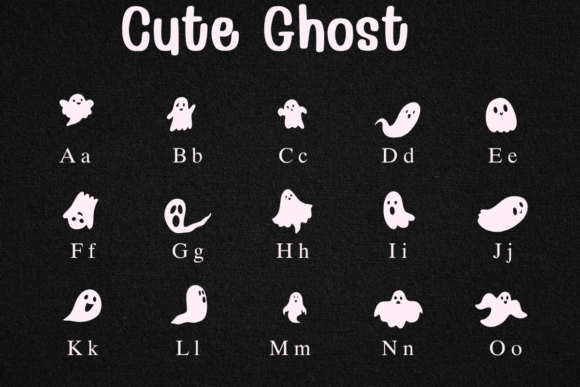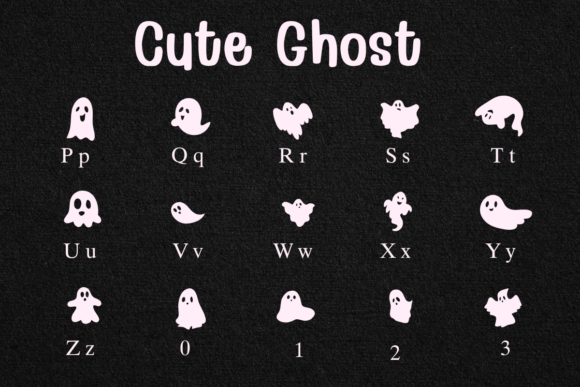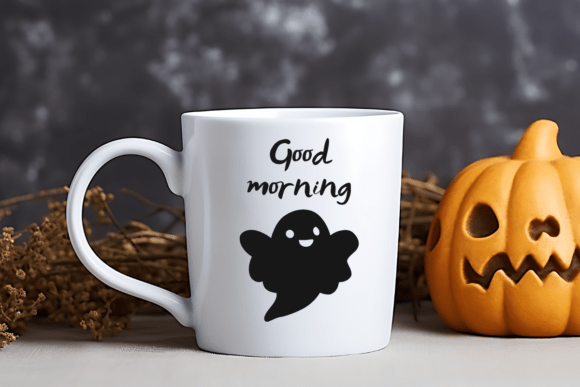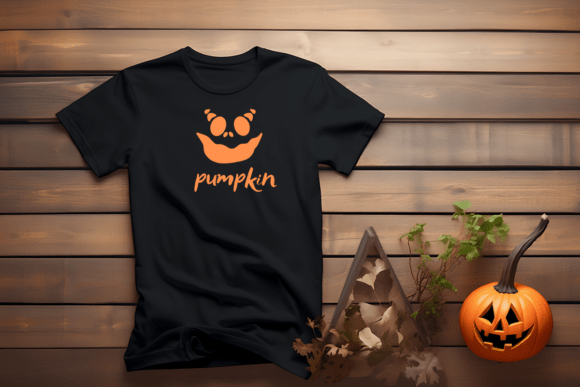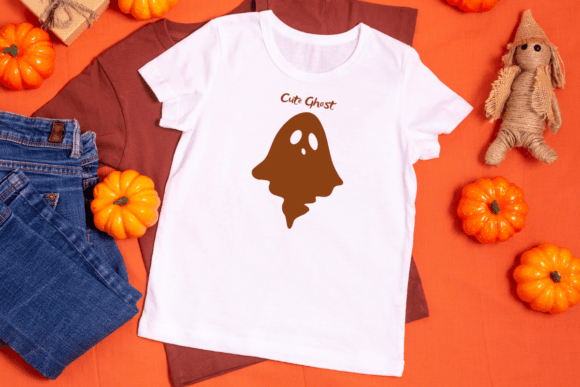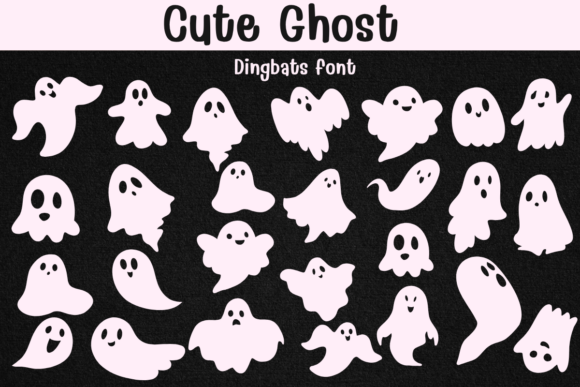
Cute Ghost Font: The Spookiest and Most Adorable Font for Your Halloween Crafts
Are you looking for a font that will add a touch of spooky-cute charm to your Halloween crafts, kid-friendly designs, and digital decorations? Look no further than the Cute Ghost Font! This charming dingbat font is filled with playful, spooky-cute ghost illustrations that are sure to delight both kids and adults alike.
What is Cute Ghost Font?
Cute Ghost Font is a unique and whimsical font that features a collection of adorable ghost illustrations. Each glyph in the font is carefully designed to showcase a unique ghost with expressive faces and shapes, making it perfect for adding a touch of personality to your designs.
Perfect for Halloween Crafts and Kid-Friendly Designs
The Cute Ghost Font is specifically designed with Halloween crafts and kid-friendly designs in mind. Whether you’re creating spooky decorations, greeting cards, or digital stickers, this font is sure to add a touch of festive fun to your projects. The font’s playful and non-threatening design makes it perfect for kids’ party decorations, trick-or-treat bags, and other Halloween-themed crafts.
No Drawing Skills Needed!
One of the best things about the Cute Ghost Font is that it’s incredibly easy to use. Simply type a letter, and a cute ghost illustration will appear! No drawing skills are needed, making it perfect for designers and crafters of all skill levels. Whether you’re a seasoned pro or a beginner, the Cute Ghost Font is a great way to add some spooky-cute charm to your designs.
Uses for Cute Ghost Font
The Cute Ghost Font is incredibly versatile and can be used for a wide range of projects, including:
- Halloween crafts and decorations
- Kid-friendly designs and party decorations
- Digital stickers and decorations
- Blog and website designs
Features of Cute Ghost Font
The Cute Ghost Font has several features that make it a standout choice for designers and crafters. Some of its key features include:
- Unique and playful ghost illustrations
- Expressive faces and whimsical shapes
- Easy to use – simply type a letter to summon a ghost!
- Perfect for Halloween crafts and kid-friendly designs
Tips for Using Cute Ghost Font
Here are a few tips for getting the most out of the Cute Ghost Font:
- Experiment with different font sizes and colors to add visual interest to your designs
- Combine the Cute Ghost Font with other fonts and graphics to create a unique look
- Use the font to add a touch of personality to your designs and make them stand out
- Don’t be afraid to get creative and try new things – the Cute Ghost Font is a great way to add some spooky-cute charm to your designs!